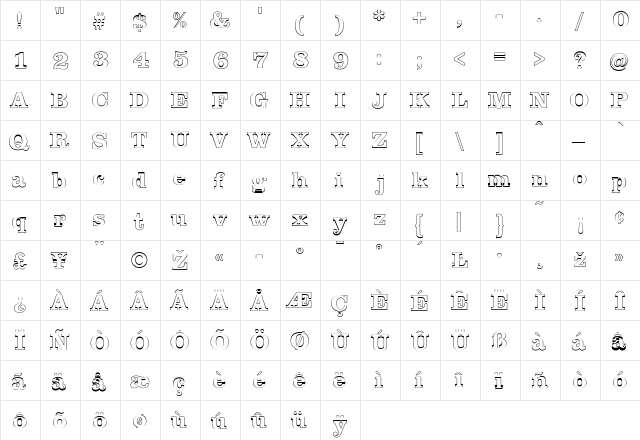
ClarendonOutline Regular
Design Context for ClarendonOutline Typeface
ClarendonOutline is built around its visual character rather than neutral utility — its distinctive forms are designed to make an impression at display sizes.
Font Pairing: Pair with a clean neutral sans-serif for body copy to let ClarendonOutline's character lead without overwhelming the composition.
Pro Tip: Treat ClarendonOutline as the centrepiece of your typographic hierarchy. One strong heading set in a decorative face can carry an entire layout.